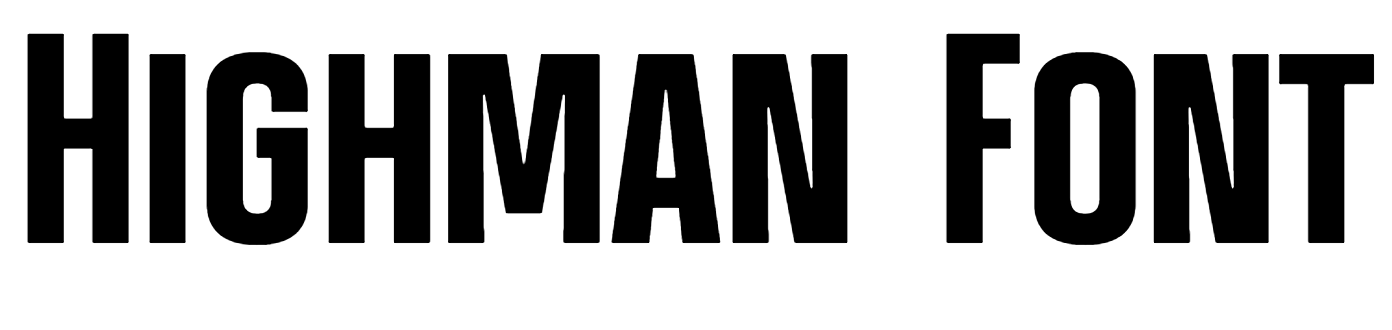
Highman
Highman is a sans serif font designed by eko bimantara (2021). It has a clean, no-nonsense look that fits modern brands and websites. It's a free download, and you can try it with your own text in the preview above first.
- Designer: eko bimantara
With complete upper and lowercase letters and all ten digits, Highman is ready for real wording, not just a single headline. Common punctuation such as &, !, ? and @ is included as well. It also has the accented letters you need for Spanish, French, Portuguese and Italian.
Designers usually reach for fonts like Highman when they're making websites, app screens and clean logos. Its lowercase letters are tall compared to the capitals, which keeps it readable at smaller sizes. The file has no kerning data, so in logos and big titles check pairs like AV, To and Wa and tighten the spacing by hand. It works for headings and body text alike. If the download has several weights, use a heavier one for titles and a lighter one for paragraphs.
Yes. Highman includes the accented letters needed for Spanish, French, Portuguese and Italian, so it works for more than just English.